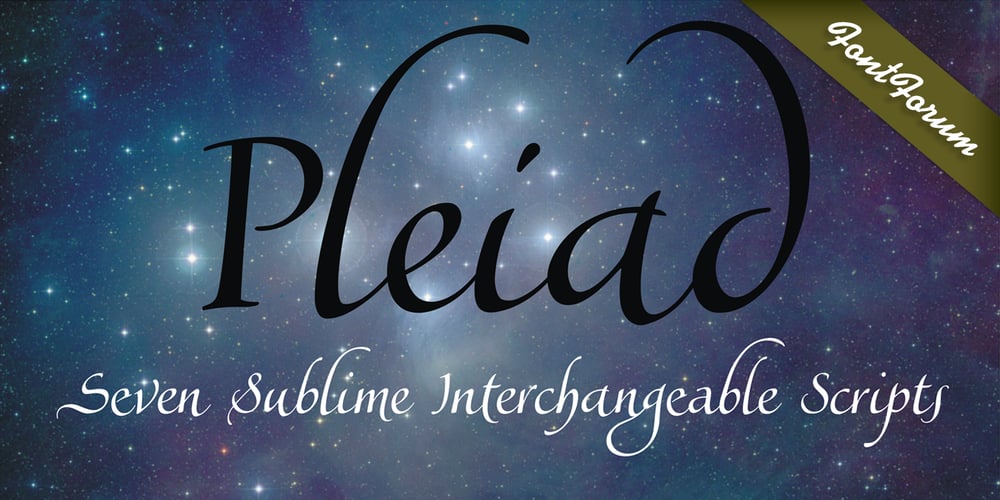
Pleiad Font Family was designed by João Henrique Lopes and published by URW Type Foundry. Pleiad contains 7 styles and family package options. Seven superb scripts, to be freely mixed with one another. Alone, each of them flows nicely, but combined they reach ultimate vitality and grace. The Pleiades are one of the most beautiful constellations in the sky, and in Greek mythology they were seven divine sisters. Luxurious freedom of choice and excellent readability make Pleiad the perfect face for a variety of projects, from stylish invitations to magazine ads, from poetry books to restaurant logos. Sometimes calm, sometimes flittering – but always fair and graceful – this sublime calligraphic type family will hold an everlasting fascination.